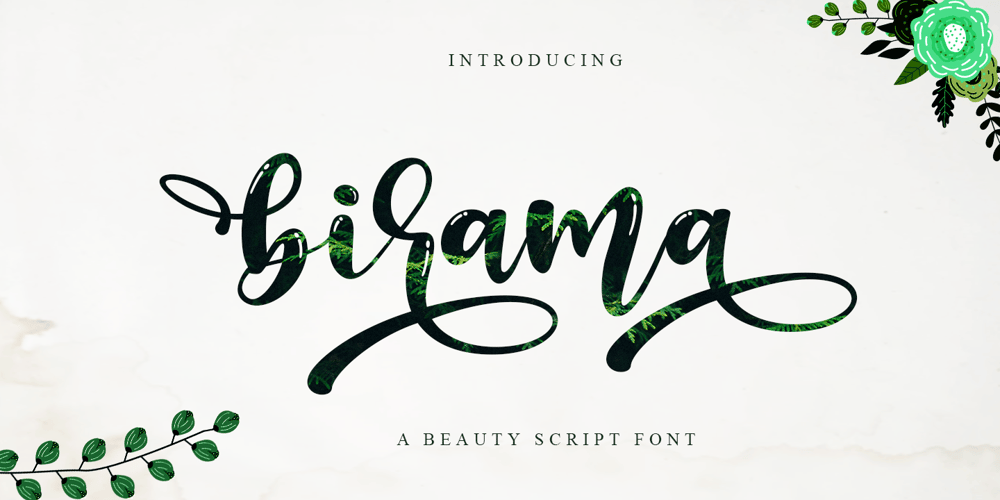
Birama Font Family was designed by Sarwo Edhi Prayitno and published by Haksen. Birama contains 1 styles and family package options. a Hand-lettered with beauty style, Birama is a must have for all your design needs. Perfect for greeting cards, branding, stationery design, social media, packaging, magazine layouts, prints and more!Utilize lowercase for a completely alternate style and also ligatures, for creative designs.This font works best in a program that supports OpenType features such as Adobe Indesign, Adobe Illustrator CS, or Adobe Photoshop CC.You can access the alternates from the ‘Glyphs Panel’ in these programs.Birama has a variety of unique, coded features to create compelling, handmade outcomes: stylistic alternates and standard ligatures.Multilingual support is included for Western European languages. PUA Encoded.Have a great day! :)Haksen